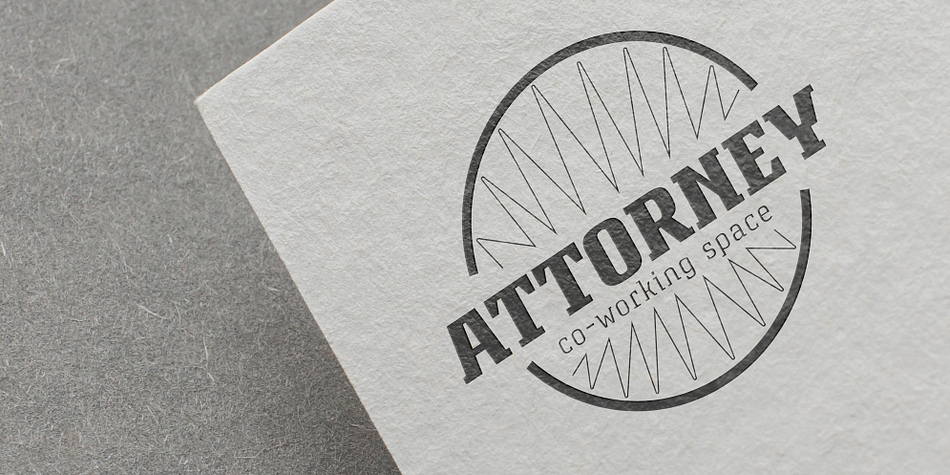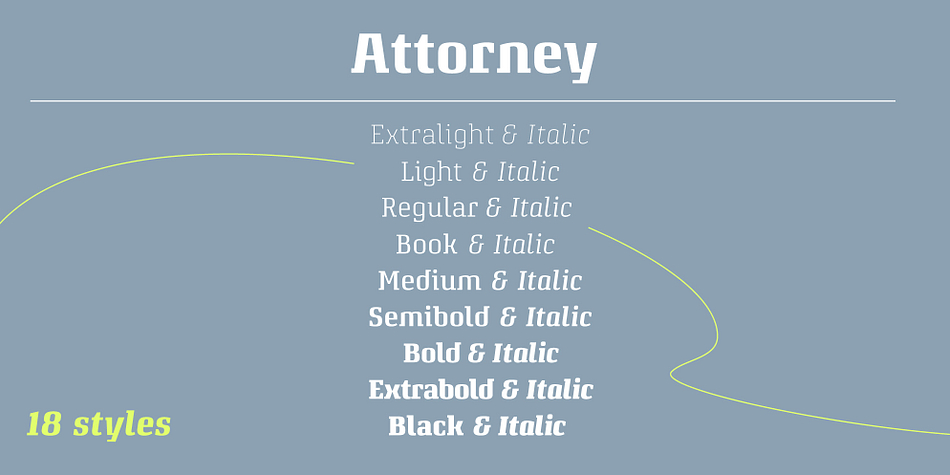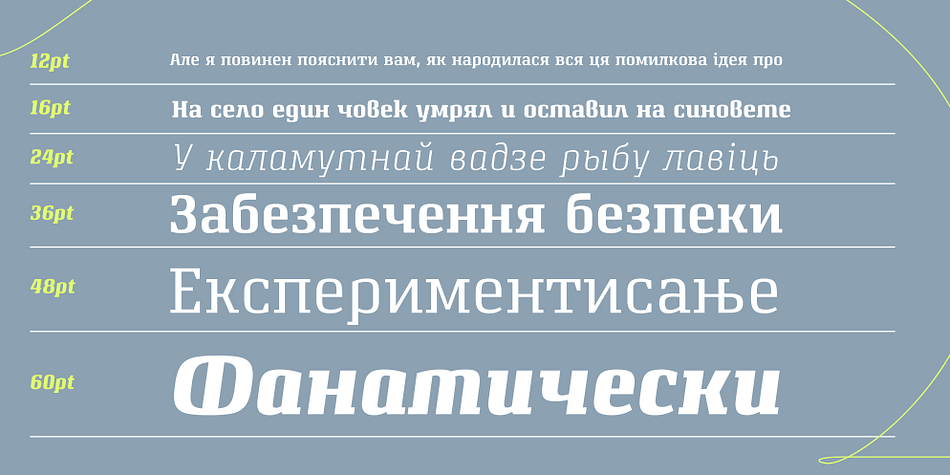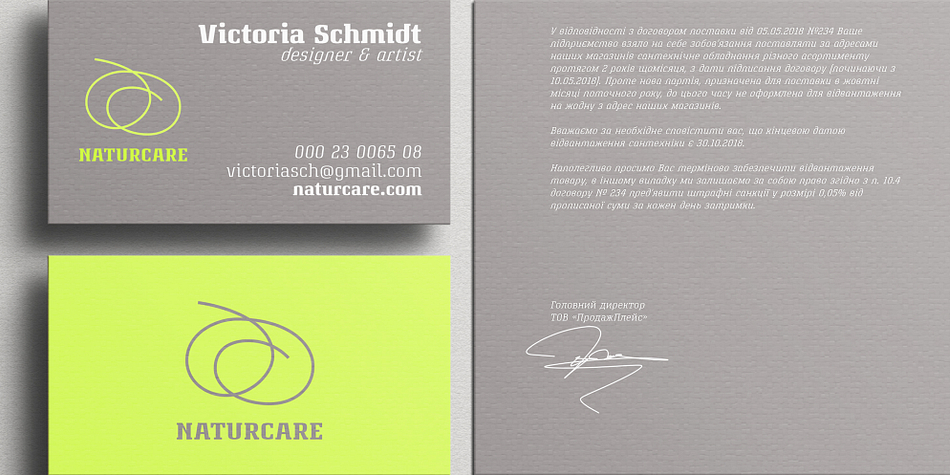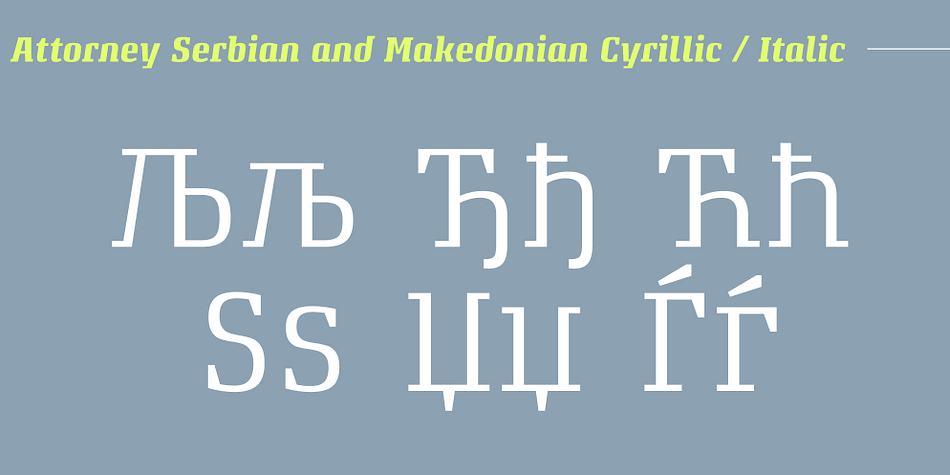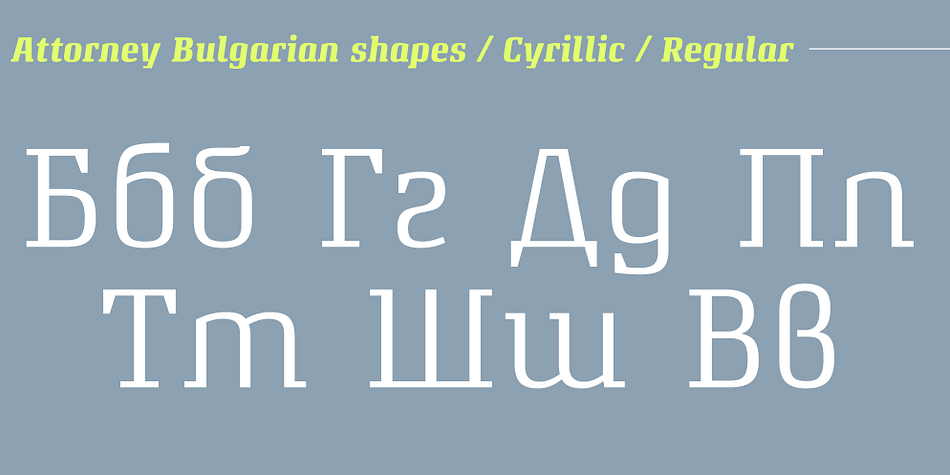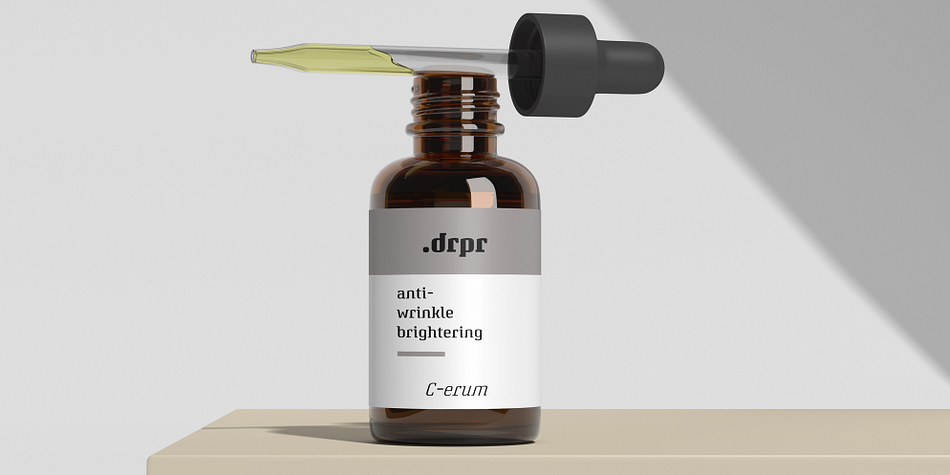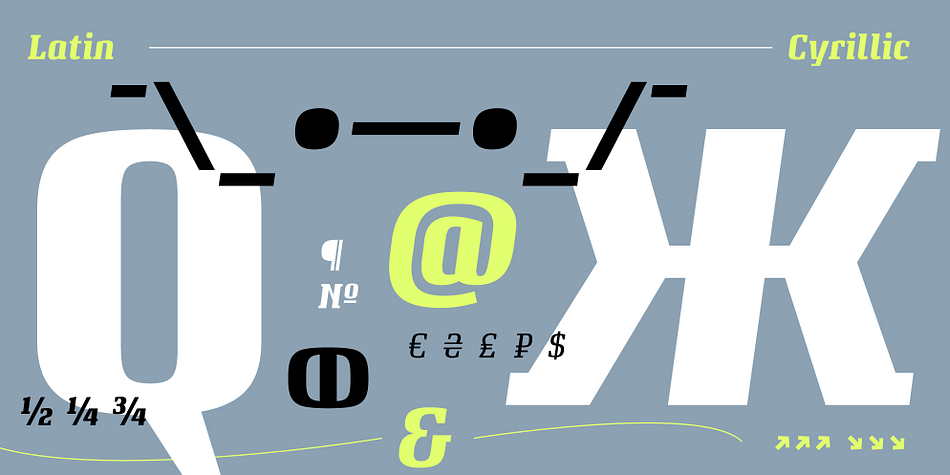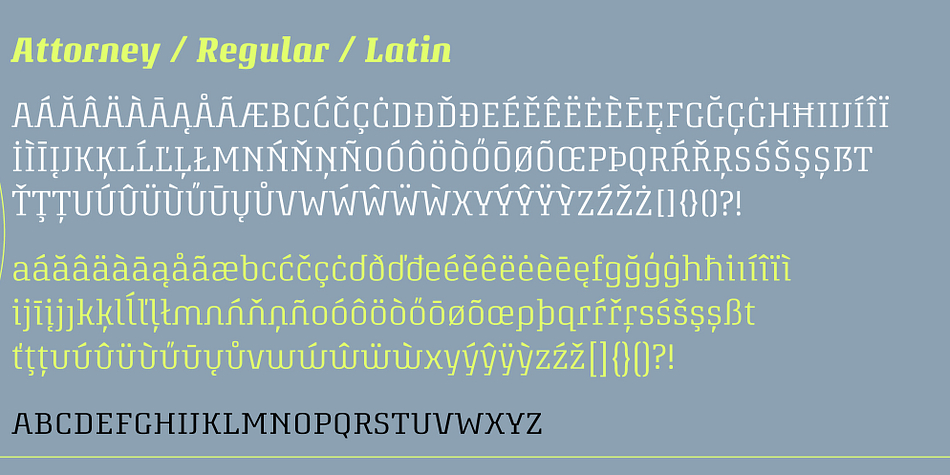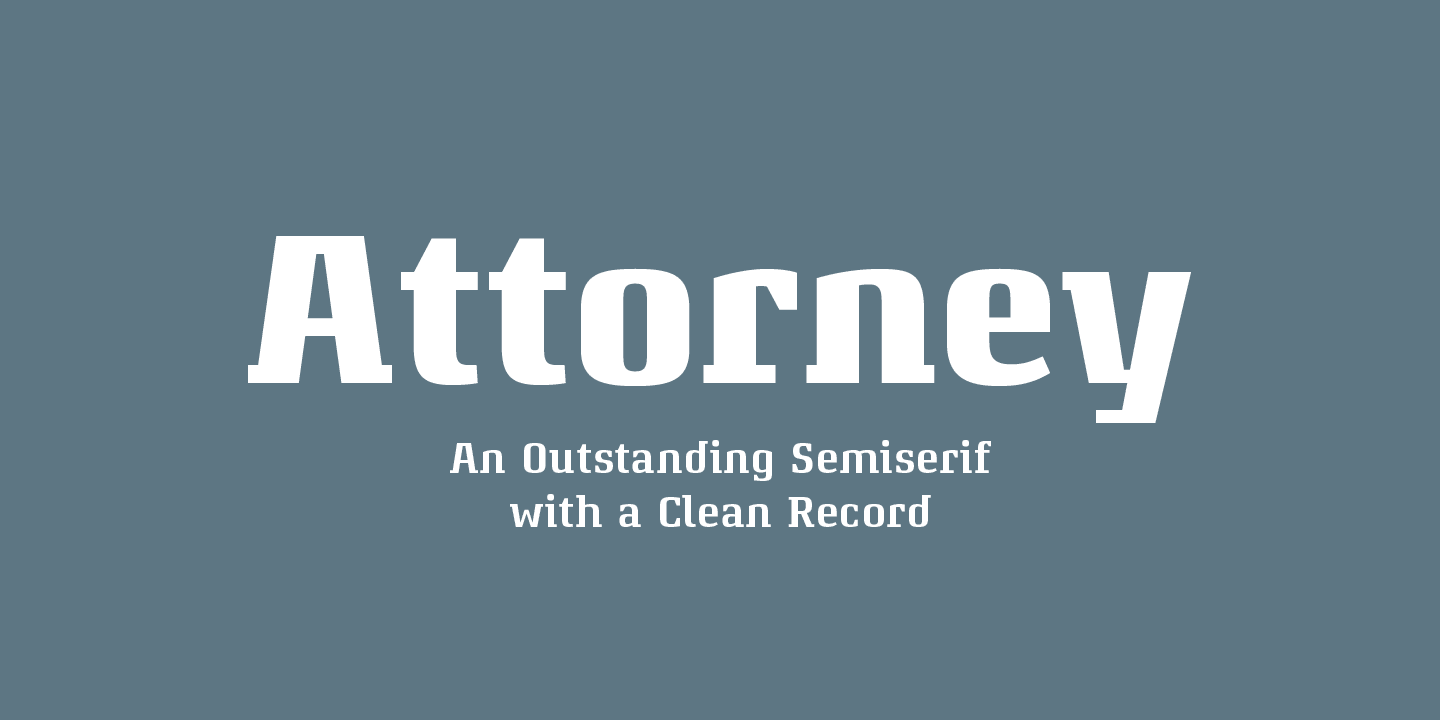
Attorney is a slab serif font family. This typeface has fourteen styles and was published by Schriftlabor.
Attorney shows a systematic, yet unconventional placing of its serifs, hard corners and a clean design which make it ‘an outstanding semiserif with a clean record’.
Typeset in 7 weights, from Regular to Black, each of them accompanied by an italic, totalling in 14 styles. In each style, you can activate smallcaps. Each Attorney font contains more than 700 glyphs, including the capital German sharp ẞ. The complete family of 14 fonts has more than 9,800 glyphs and supports at least 204 languages, probably more.